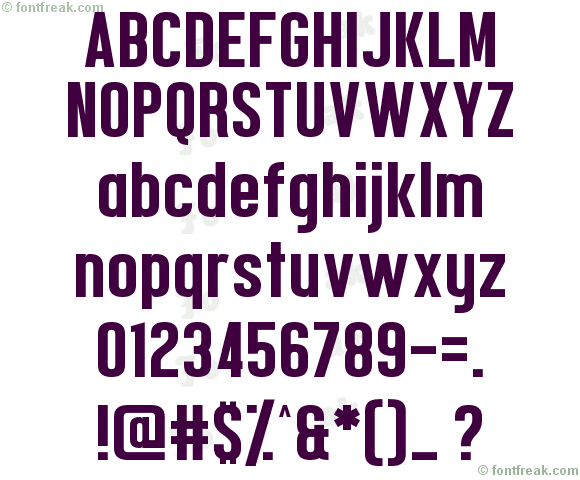
Confidel
Confidel, designed by Andrew McCluskey in 2014, is a striking display typeface that captures attention with its bold and contemporary aesthetic. As a sans-serif font, it features clean lines and a geometric form, making it a versatile choice for various design applications. The strokes are uniform in weight, offering a modern feel, while the ample spacing between letters enhances readability, a crucial aspect for impactful design.
The visual characteristics of Confidel are marked by its slightly rounded edges and a sturdy presence, providing a balanced contrast that is both inviting and assertive. This makes it an excellent option for a variety of creative projects. The font excels in use cases such as wedding invitations, where its approachable nature can convey warmth and elegance. Additionally, it serves well in movie posters, adding a dynamic flair that grabs audience attention. Restaurant menus can benefit from its clarity and style, helping to highlight dish names and descriptions effectively. Furthermore, small business owners looking to establish a brand identity will find Confidel to be a reliable choice, as it communicates professionalism while still being approachable.
Targeting graphic designers, content creators, and small business owners alike, Confidel allows for creativity without sacrificing functionality. Its availability as freeware enhances its appeal, enabling users to experiment without financial constraints. For those seeking a distinctive typeface that combines modern aesthetics with practical application, the Confidel font free download is an opportunity not to be missed. This font stands out not only for its visual appeal but also for its adaptability across various mediums, making it a valuable addition to any designer's toolkit.